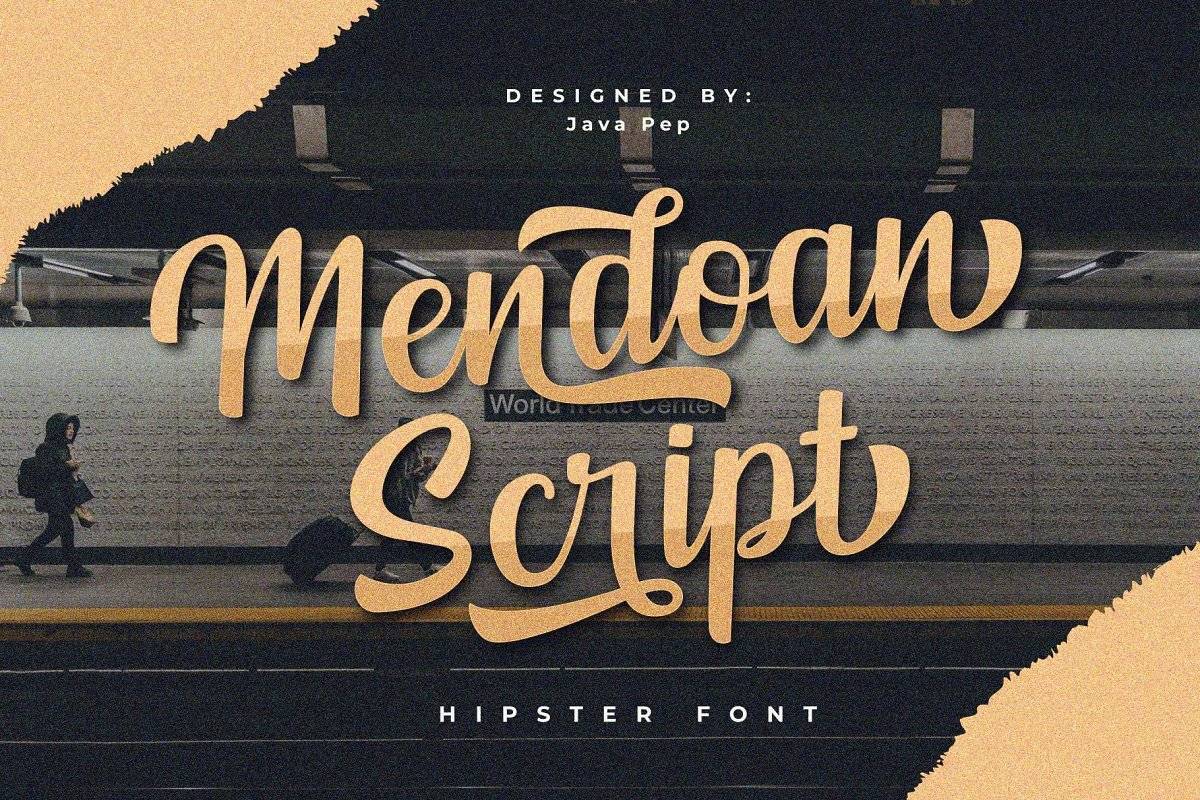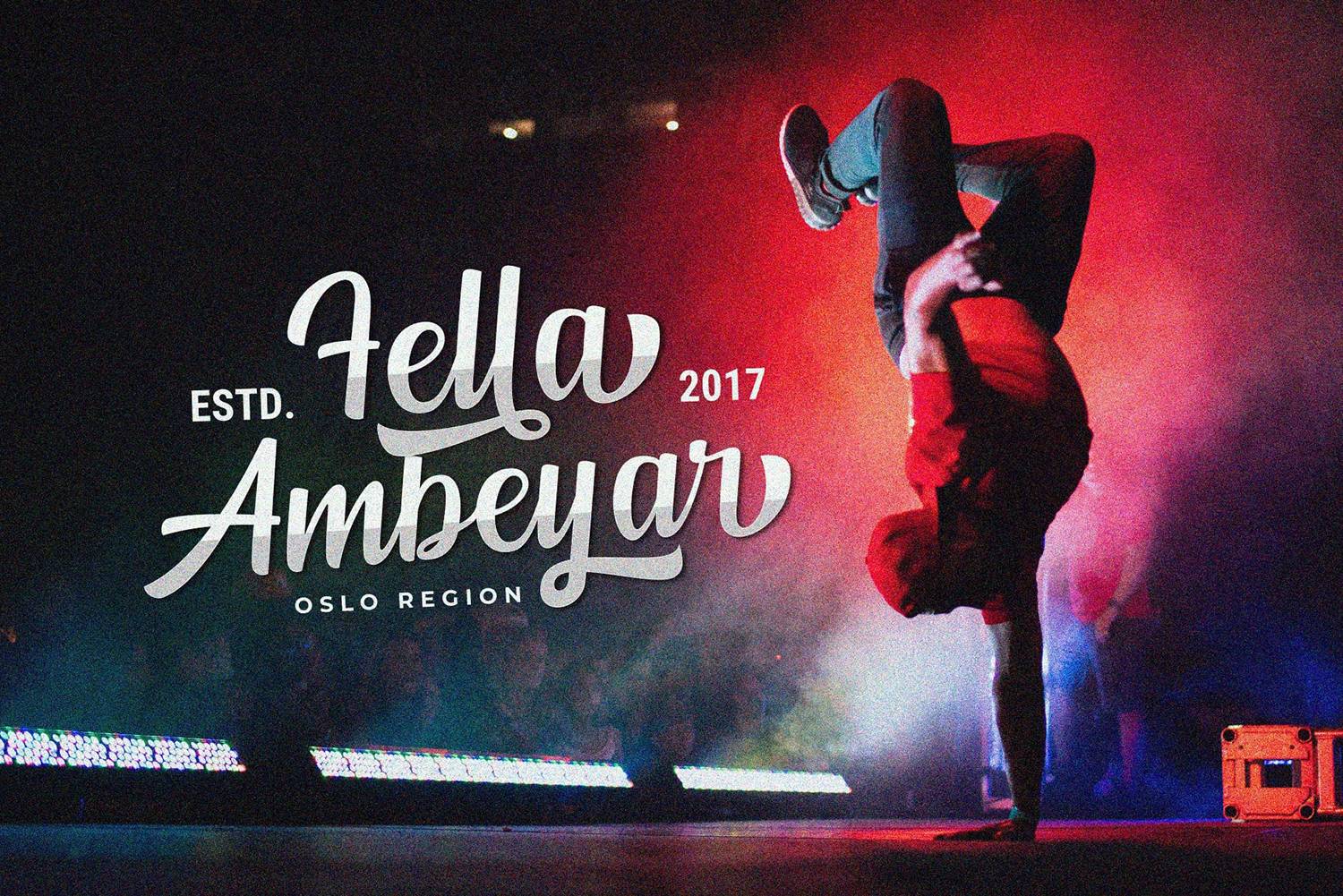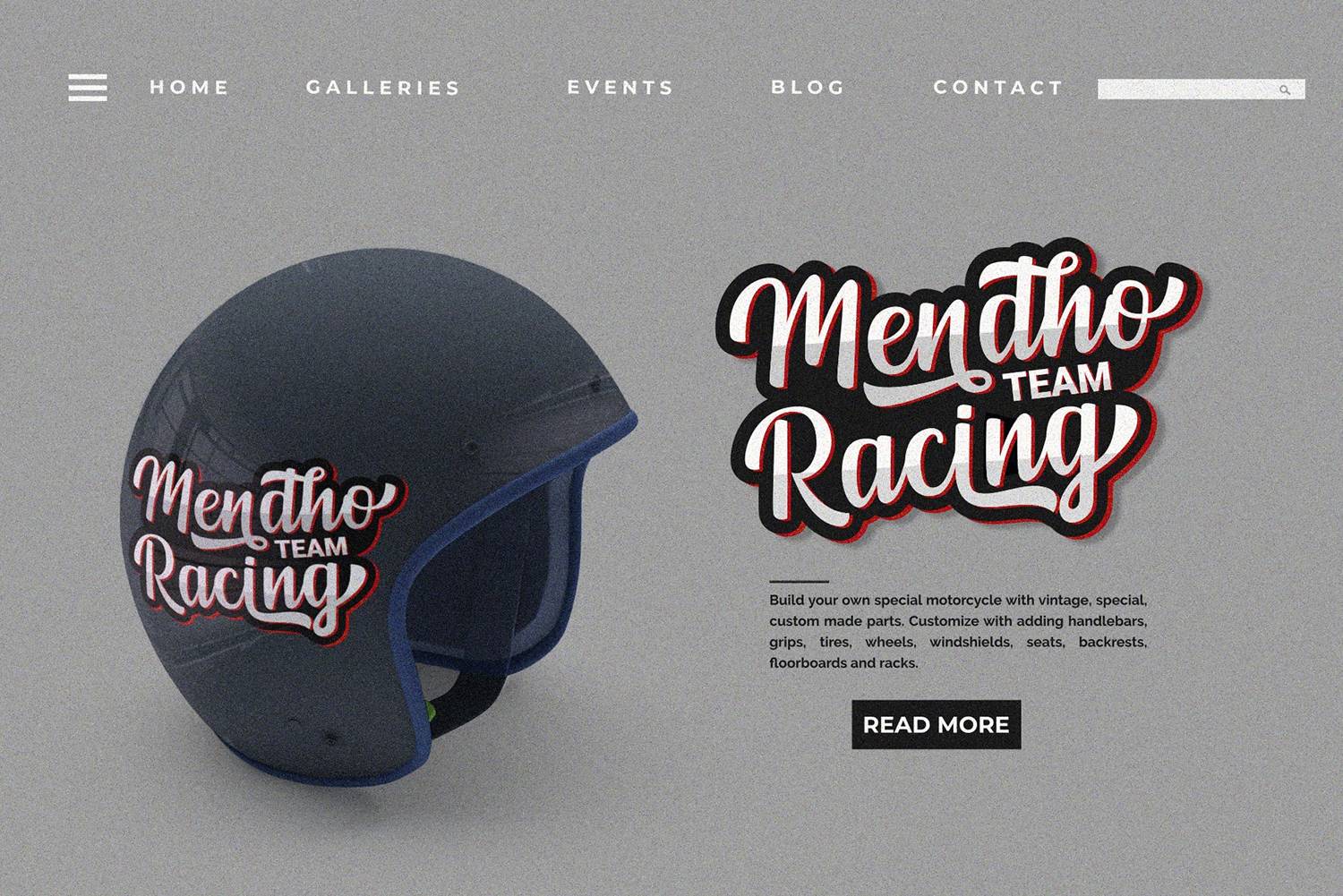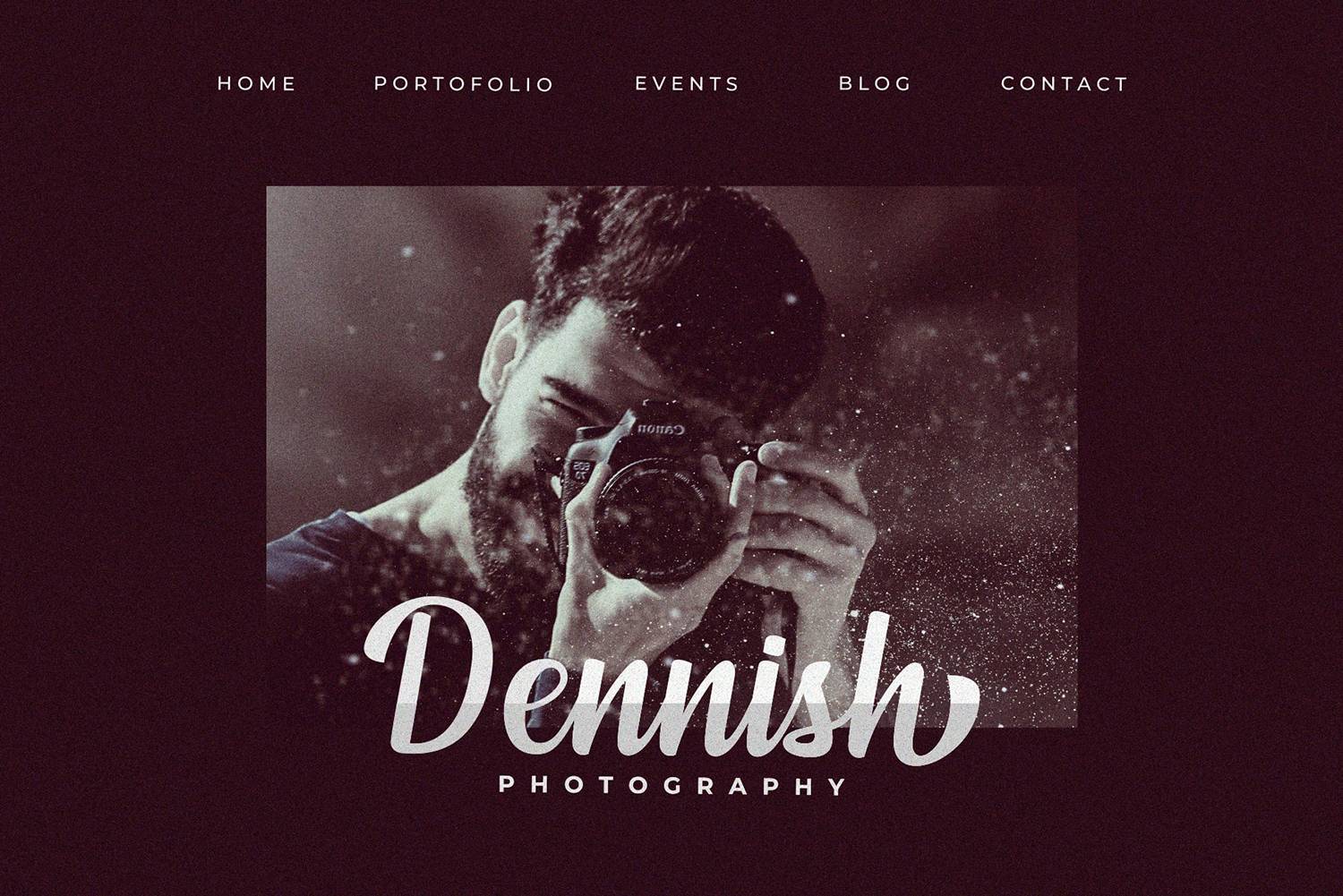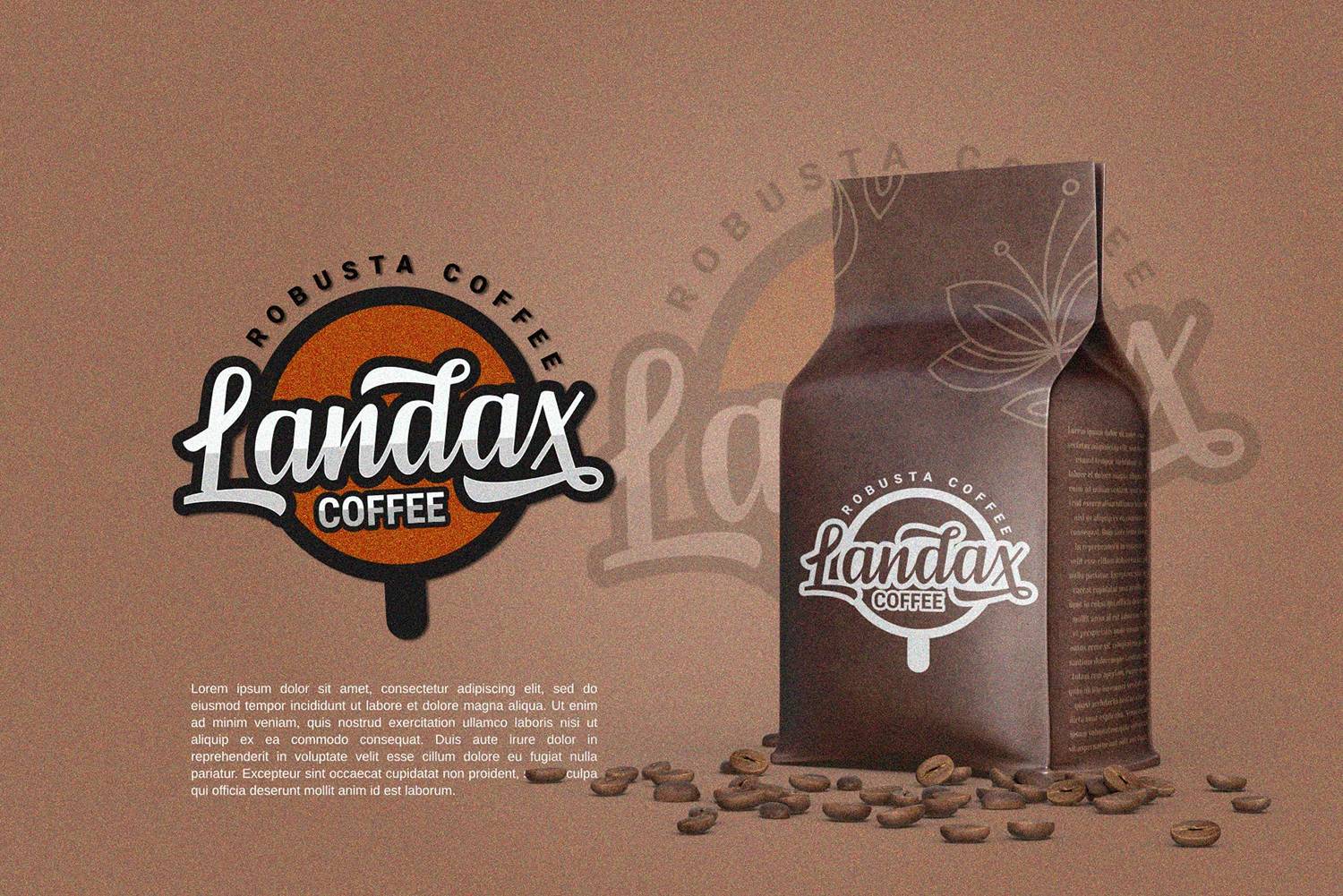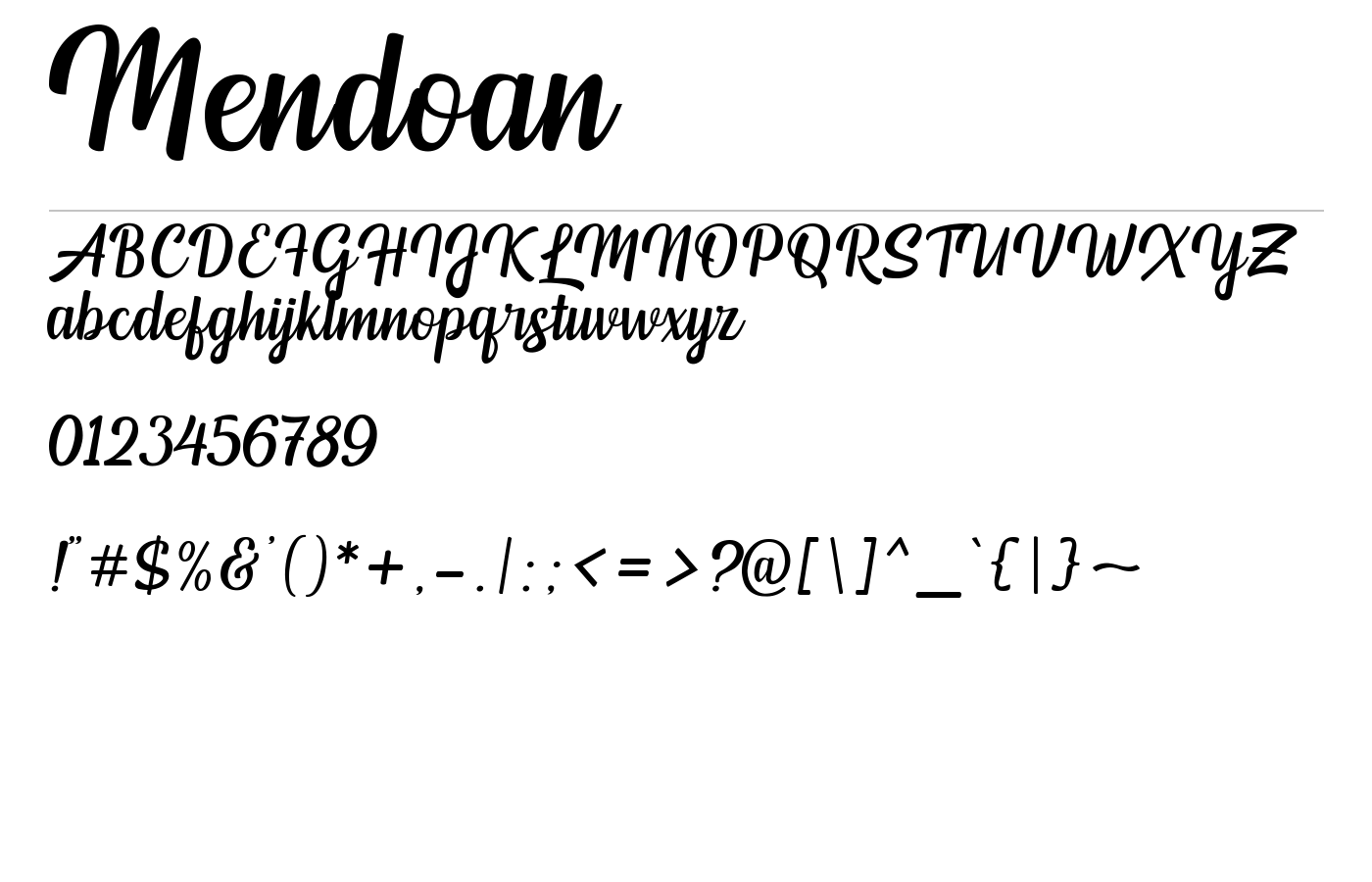
Mendoan is a lively script font with a smooth, handwritten flair that combines elegance with casual charm. Its moderately bold strokes and fluid letterforms make it perfect for invitations, branding, and creative projects where a friendly yet polished look is desired. This font shines in headlines and logos, bringing a warm and approachable personality to any design.
Mendoan Font